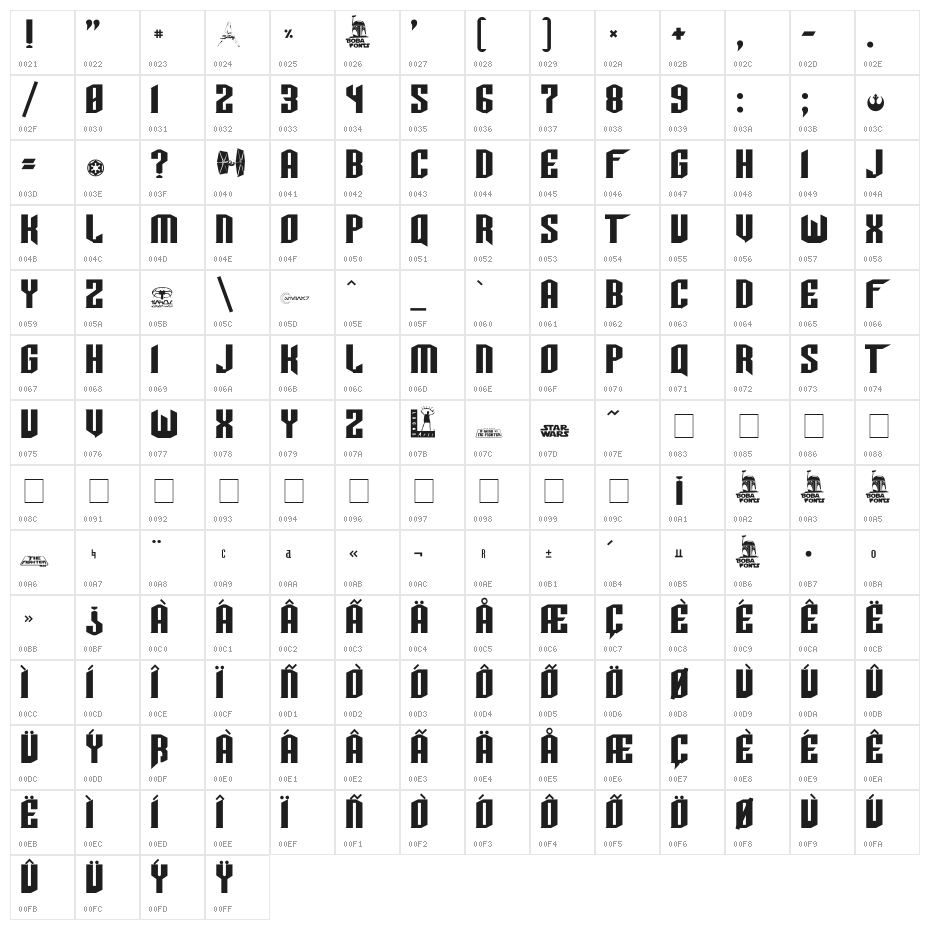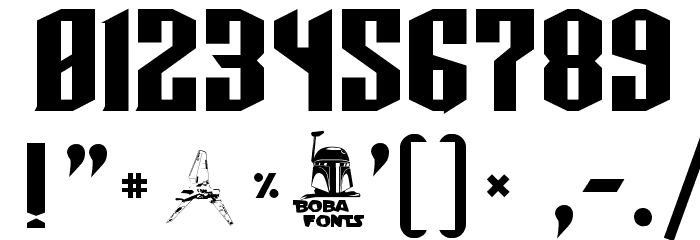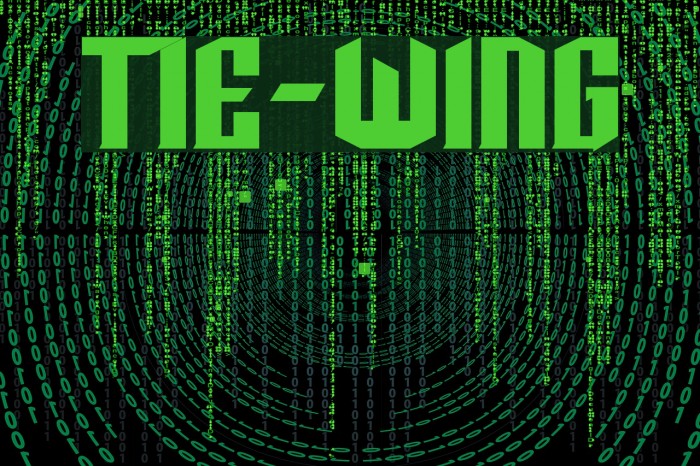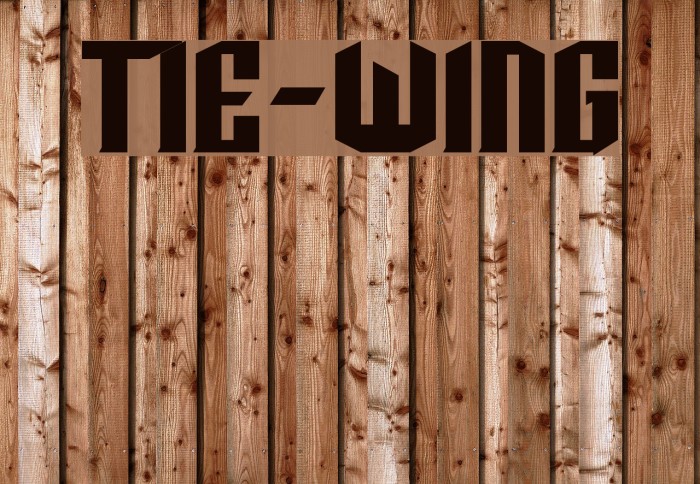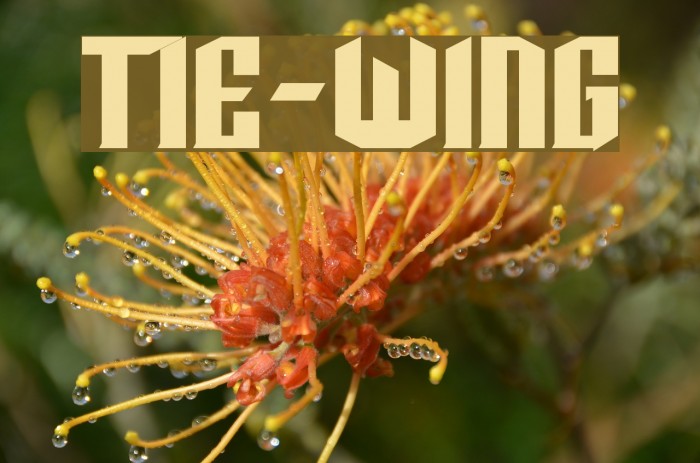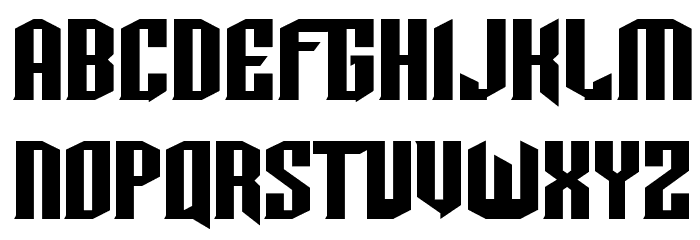
TIE-Wing Font
TIE-Wing Description
This font features a bold and angular design, reminiscent of futuristic or sci-fi themes. The characters are constructed with sharp edges and geometric shapes, giving it a strong and impactful presence. The uppercase and lowercase letters maintain a consistent style, with the uppercase being slightly more pronounced. Numbers and special characters follow the same angular aesthetic, ensuring uniformity across all glyphs. The font's design is ideal for projects that require a modern and edgy look, such as video game titles, movie posters, or branding for tech companies.
| Overall Style | Futuristic, Sci-Fi, Modern |
| Proposed Projects | Ideal for video game titles, sci-fi movie posters, tech branding, and futuristic designs. |